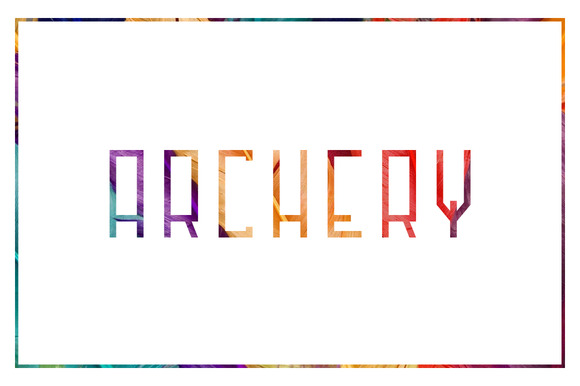
The Archery Font: A Modern Typeface for Creative Projects
I’ll never forget the time I was working on a project for a client who needed a bold, modern font to capture the essence of their brand. I scoured the internet for hours, trying out different typefaces, but nothing seemed quite right. That was until I stumbled upon the Archery font. ✨
“Archery” is a modern typeface that can be used for various purposes such as headings, invitations, posters, book covers, labels, name cards, and much more. Its sleek lines and contemporary feel make it perfect for designers, crafters, and creative hobbyists looking to add a touch of sophistication to their projects.
- ✅ Versatility: Archery can be used for a wide range of projects, from digital designs to print materials.
- ✨ Aesthetic appeal: The font’s modern design and clean lines make it visually appealing.
- ✅ Easy to read: Despite its bold and modern look, Archery remains highly legible, even at smaller font sizes.
While Archery is an excellent font, there are a few things to keep in mind: 🤔
- ⚠️ Limited free alternatives: If you’re looking for similar fonts, you might find that there aren’t many free options available.
- ⚠️ Not ideal for body text: Archery is best used for headings and titles, as it may not be the most comfortable font to read for extended periods.
The Designer Inspiration Behind Archery
The Archery font was designed with the modern creative in mind. Its sleek lines and contemporary feel are inspired by the world of sports and outdoor activities. 💪
The designer aimed to create a font that would be both bold and elegant, perfect for making a statement in any design project.
Q: What is the Archery font best used for?
A: Archery is best used for headings, titles, and short text passages. It’s perfect for designs that require a bold, modern look.